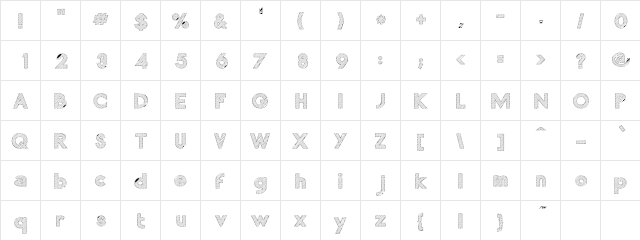
Blockade Regular
Design Context for Blockade Typeface
Blockade takes a measured approach to typography — its balanced proportions and neutral character make it a reliable workhorse for both digital and print work.